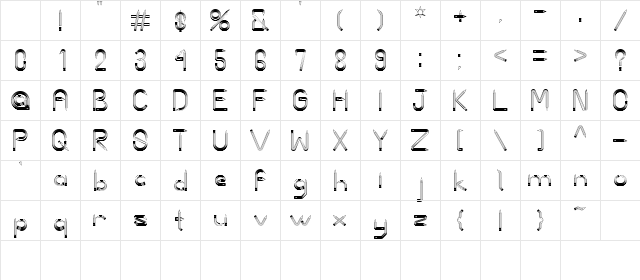
Complete AC4-Pencils Regular glyph index. Displaying only characters natively supported by AC4-Pencils Regular font.
AC4-Pencils is a composed and adaptable typeface that performs quietly and consistently across a wide range of design contexts.